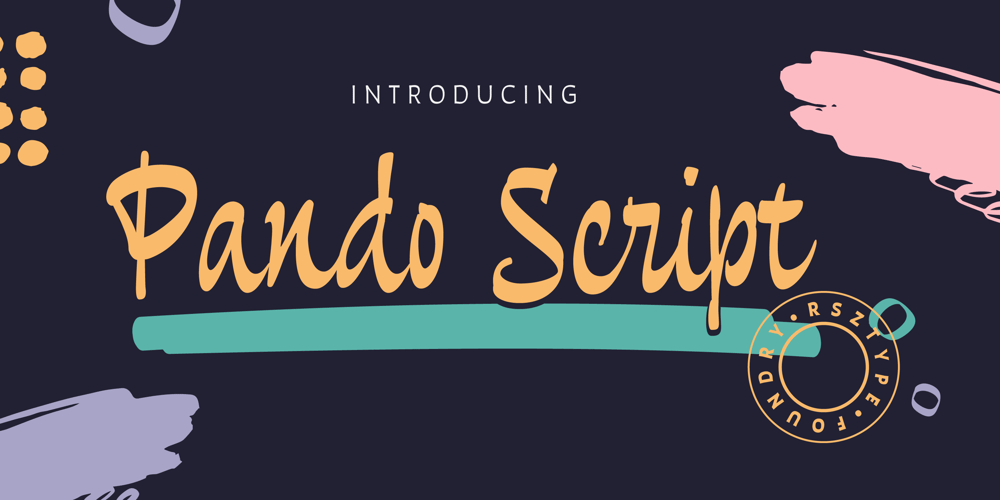
Pando Script
Pando Script font
Pando Script Font Family was designed by Giuseppe Salerno, Paco González and published by Resistenza. Pando Script contains 4 styles and family package options. Introducing Pando Script, a captivating new brush script font that defies convention with its inverted contrast and abundant personality. This typeface family comprises four distinct fonts, including regular and slanted variants, along with a condensed version of each, offering versatile options for design projects.Pando Script stands out with its unconventional design, where strokes exhibit a reversal of traditional contrast, resulting in a visually arresting aesthetic.With its bold and expressive character, Pando Script is ideally suited for headlines, labels, packaging, and branding endeavours.More About Opentype Features: https://bit.ly/opentype-rsz